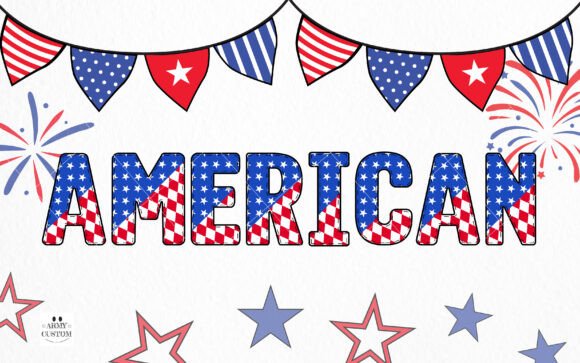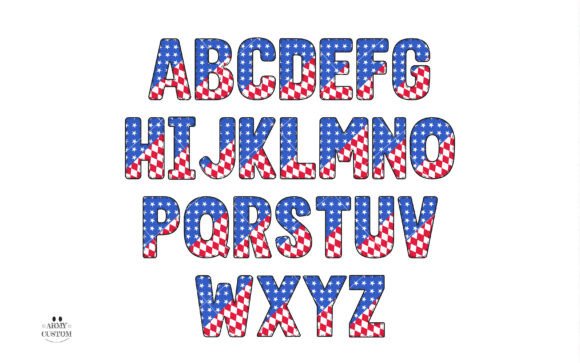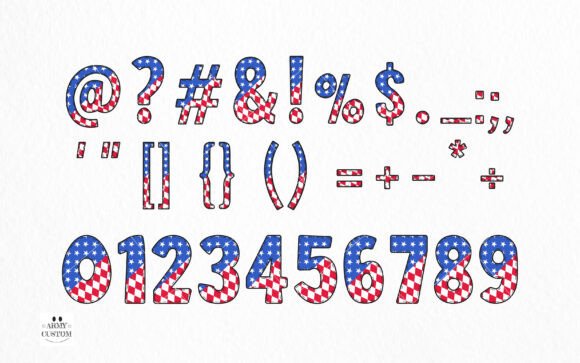
Unleash the Spirit of Patriotism with the American Flag Font
Do you remember the feeling of creating a handmade card for a loved one’s birthday, only to realize that the perfect font to convey your emotions was missing? For designers and crafters, this moment is all too familiar. But what if you could infuse your creations with the essence of the American spirit, effortlessly conveying patriotism and pride?
Enter the American Flag Font, a uniquely designed font that embodies the charm and spirit of American aesthetics. This font is not just a tribute to the Land of the Free, but a living, breathing expression of its values and history. With the American Flag Font, you can add an unmatched touch of patriotism to your creative projects, from custom invitations to patriotic decorations.
Key Features of American Flag Font
- Unique Characteristics: American Flag Font features a unique design that resembles the colors and pattern of the American flag, making it a distinctive and eye-catching choice for various designs and projects.
- Style Options: The font includes various style options, such as bold, italic, and outline, allowing designers to add depth and visual interest to their designs.
Designer Review: American Flag Font
Overall, I think the American Flag Font has some interesting aspects, but also some drawbacks that make it less appealing for broad use. ✨
- The font’s unique design is a great representation of the American flag, making it perfect for patriotic themes or designs.
- The font is well-executed, with clear lines and defined shapes that give it a strong visual impact.
- The font’s bold style makes it easy to read, even at smaller sizes.
- ⚠️ The font is quite limited in its usage, as it’s mainly suited for patriotic or American-themed designs. This restricts its versatility and broad appeal.
- ⚠️ The font’s bold style can sometimes feel overwhelming or too loud, which may not be suitable for all designs.
- ⚠️ There are limited font weights and styles available, which may limit the font’s potential for creative use.
Overall, I think the American Flag Font is a great choice for specific, patriotic designs, but its limitations make it less suitable for broader use. With a bit more versatility and flexibility, this font could be a real winner.
For a patriotic look, pair the font with red, white, and blue colors and use it for headings or titles.
For a bold look, use the font in combination with bold colors and geometric shapes.
For a patriotic look, use the font for headings and titles, and pair it with red, white, and blue colors.
Use the American Flag Font for patriotic designs, such as Independence Day celebrations, Memorial Day tributes, and Veterans Day commemorations.
Pair the font with bold colors and geometric shapes for a bold look, or use it with a distressed effect for a vintage look.